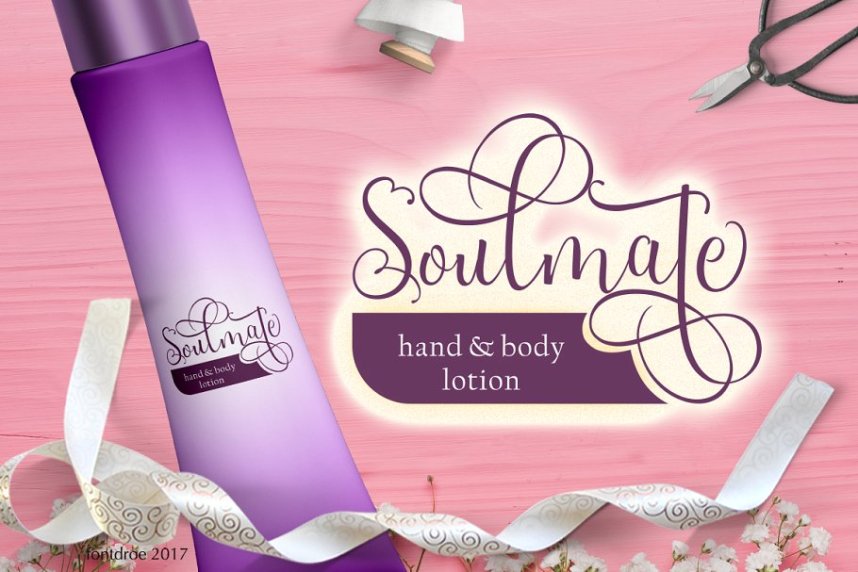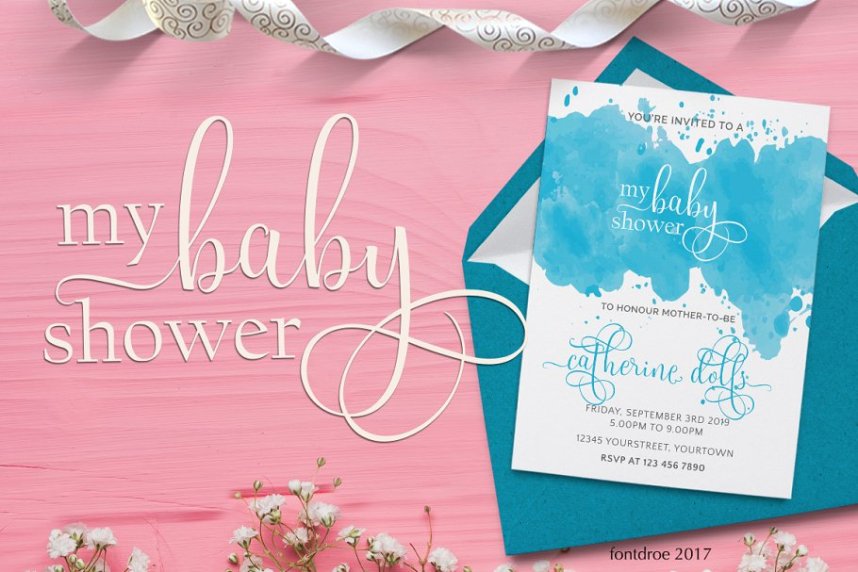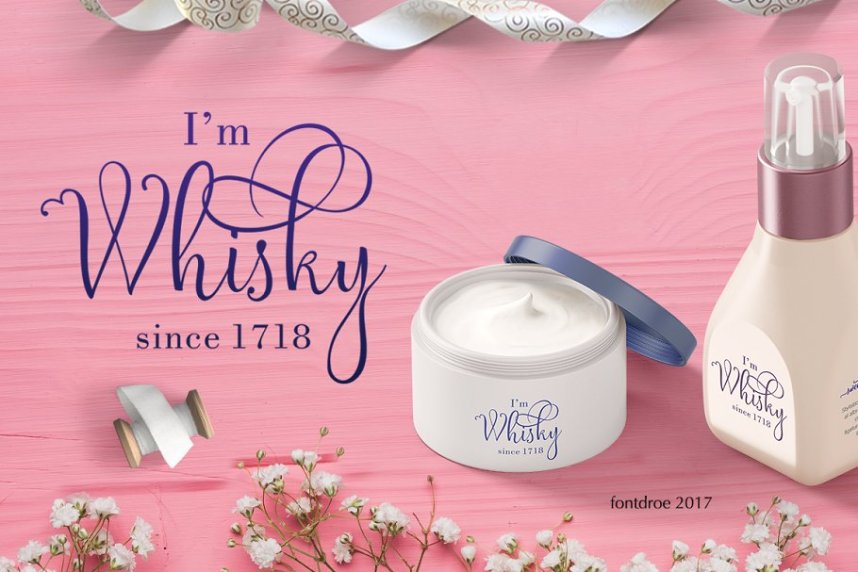
Sweetgentle Script Font
A new fresh handmade calligraphy font. Offers beautiful typography harmony for a variety of project design. Introducing Sweetgentle Font. Sweet Gentle Calligraphy Font designed and shared by Fontdroe. SWEETGENTLE is a new modern calligraphy typeface built in 750 glyphs. This Modern Calligraphy typeface welcomes you to use it for various purposes such as logo, card, wedding invitation, headings, signatures, t-shirt, letterhead, cutting, hot stamping, signage, labels, posters and more.